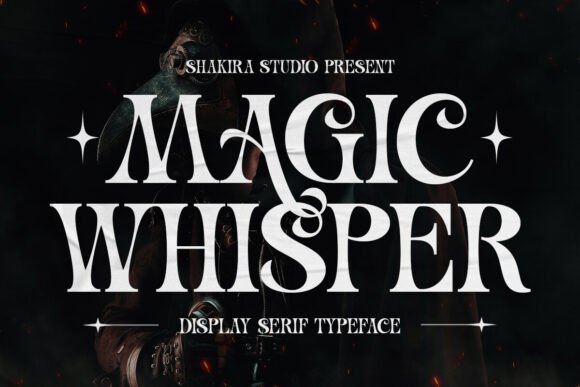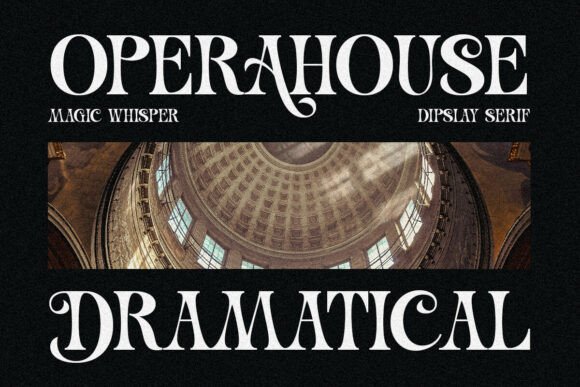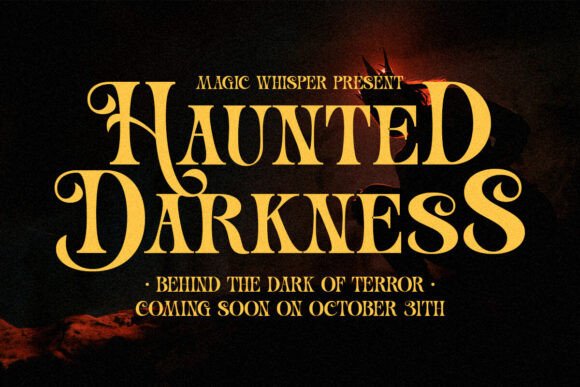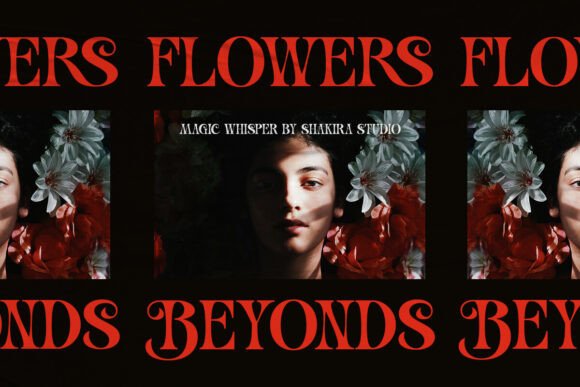
Magic Whisper Font: Elegant Serif for Branding & Posters
About the Magic Whisper Font
From logos to headlines, the Magic Whisper Font is the perfect choice for making a lasting impression. Introducing Magic Whisper, a dramatic serif display font that exudes elegance and mystique. With a bold Regular version, stylish alternates, and ligatures, this typeface is designed to elevate any project—whether it’s for branding, posters, or editorial designs. Perfectly blending vintage charm with modern aesthetics, Magic Whisper is a versatile and powerful tool for creatives who seek to leave a lasting impression. Unlock the magic in your designs with this bold and unique typeface.
Magic Whisper’s dramatic serifs and bold forms make it ideal for headlines, short text blocks in posters, and impactful branding elements like logos and taglines. It excels in creating a sense of luxury or mystery, lending itself well to projects within the fashion, beauty, or high-end spirits industries. Avoid using it for large amounts of body copy or UI elements; its strong personality overwhelms readability in extended text formats.
Pairing Magic Whisper effectively requires considering its inherent boldness. A clean sans-serif like Montserrat or a geometric sans-serif like Futura would provide a sophisticated contrast and enhance readability when used for supporting text. For a more vintage feel, a neutral serif such as Garamond could create a harmonious yet distinct balance.
The font’s core personality is elegant yet bold, leaning towards a sophisticated and slightly mysterious aesthetic. Its vintage charm, however, allows for flexibility in application, making it suitable for projects that require a touch of classic style balanced with a contemporary edge.
Magic Whisper Font Usage Examples
Magic Whisper Font Example